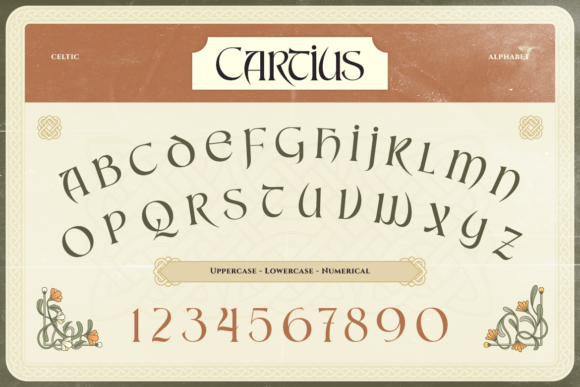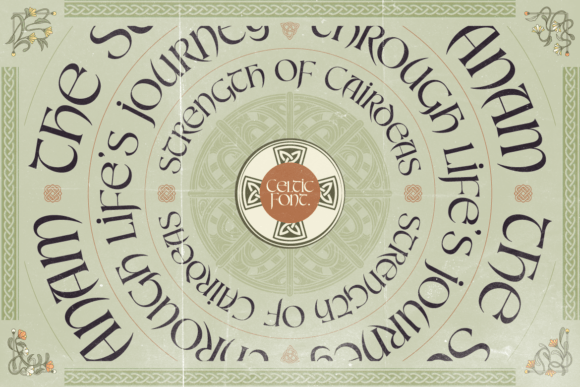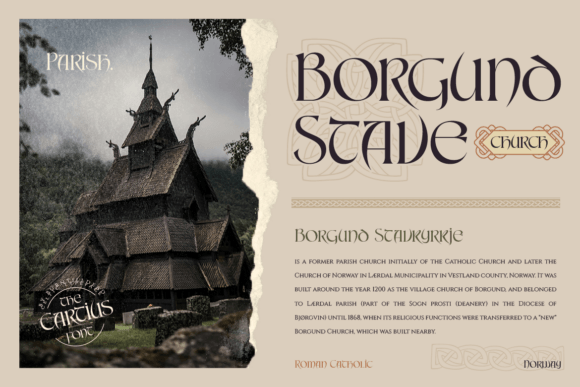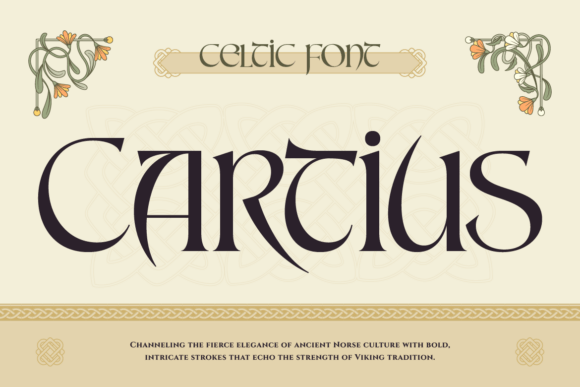
Introduction to Cartius Font
Proudly present, Cartius channeled the fierce elegance of ancient Norse culture with bold, intricate strokes that echo the strength of Viking tradition.
This font is inspired by ancient manuscripts, sacred text, and traditional Celtic art The style emerged around the 6th to 7th centuries, and inhabited regions like Ireland, Scotland, and Britain.